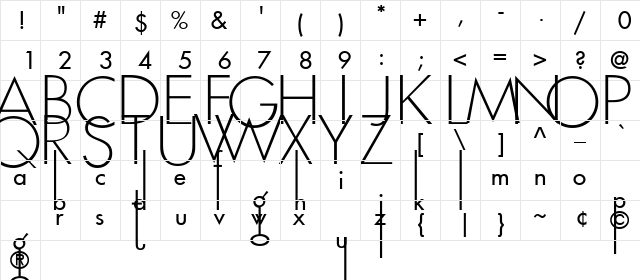
Coffee Shop Regular
Design Context for Coffee Shop Typeface
Coffee Shop takes a measured approach to typography — its balanced proportions and neutral character make it a reliable workhorse for both digital and print work.
Pro Tip: Pair Coffee Shop with a font of contrasting weight or personality to build a more expressive typographic hierarchy.